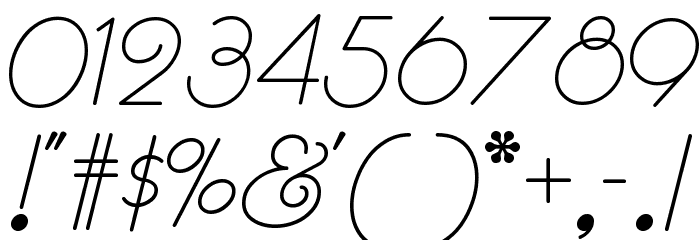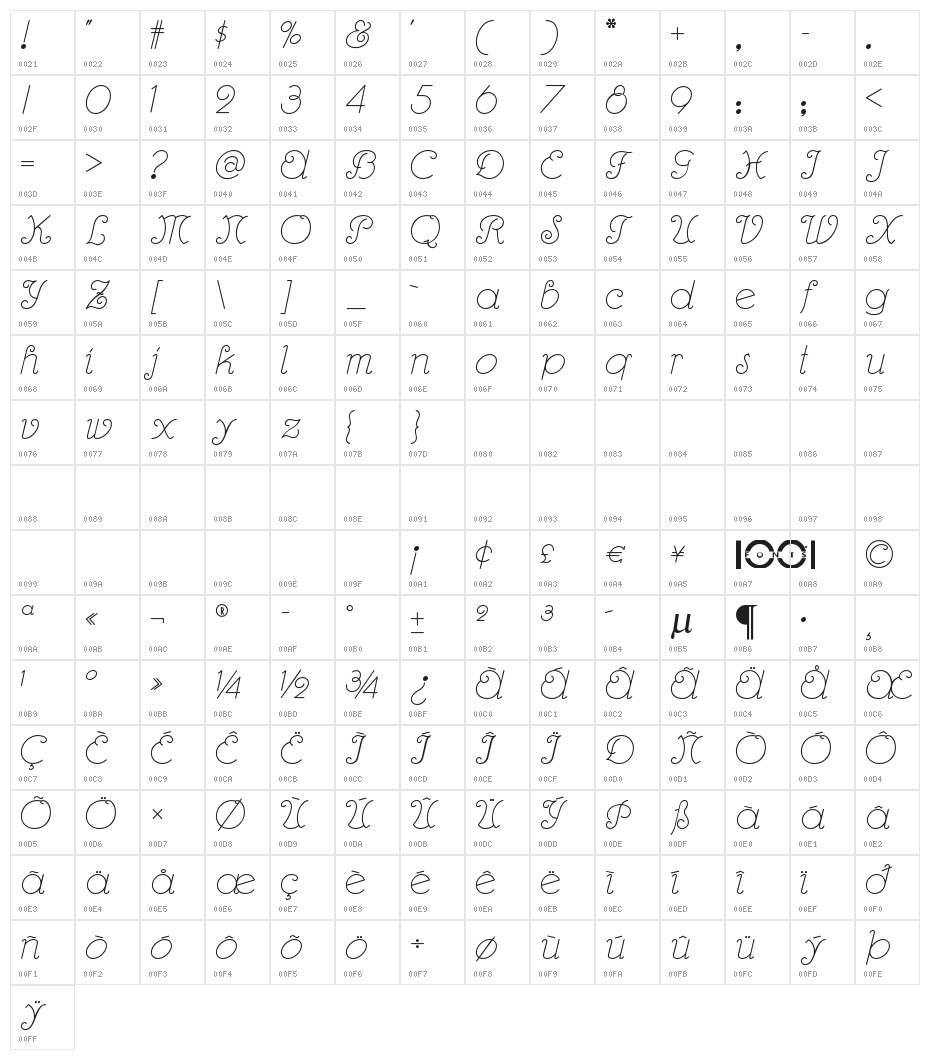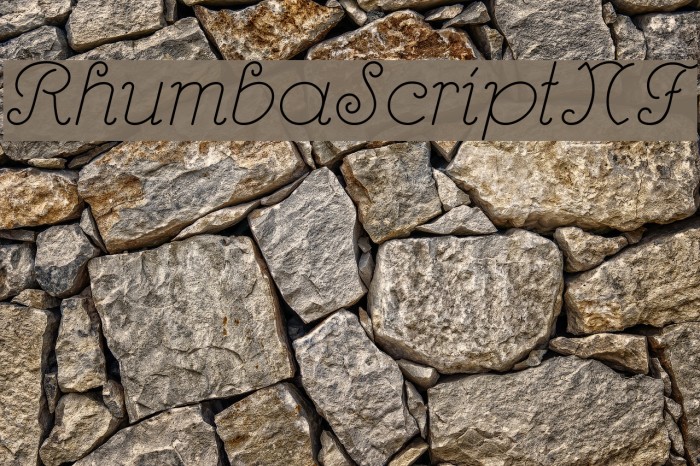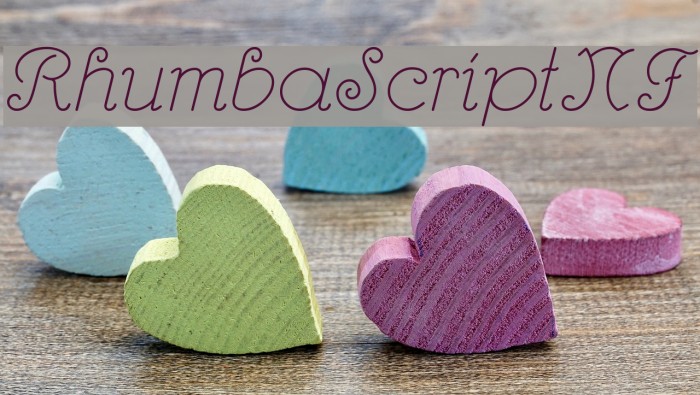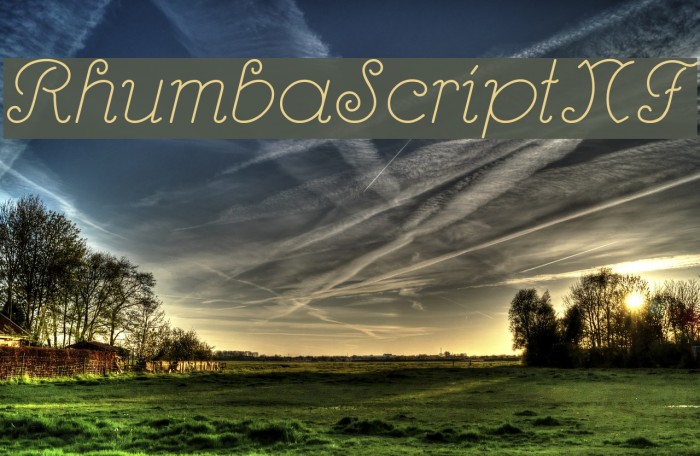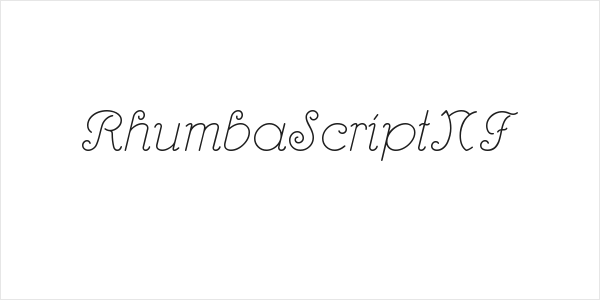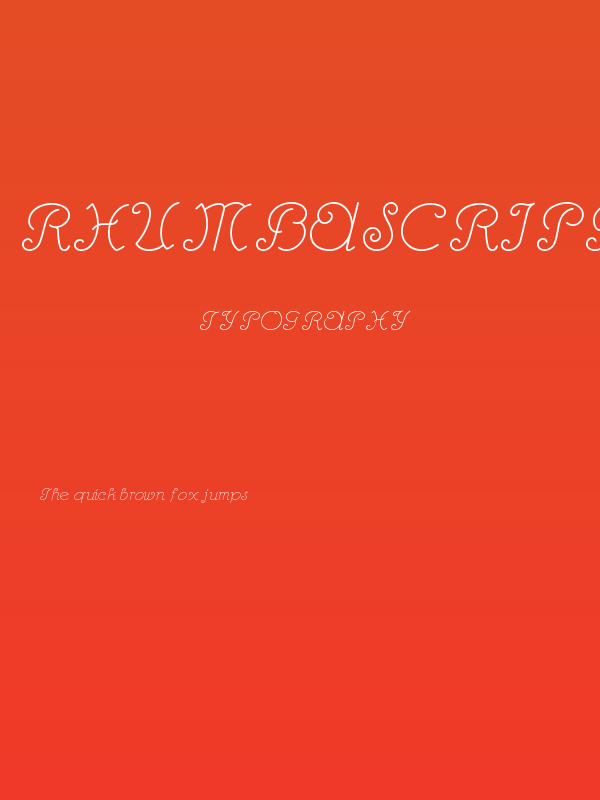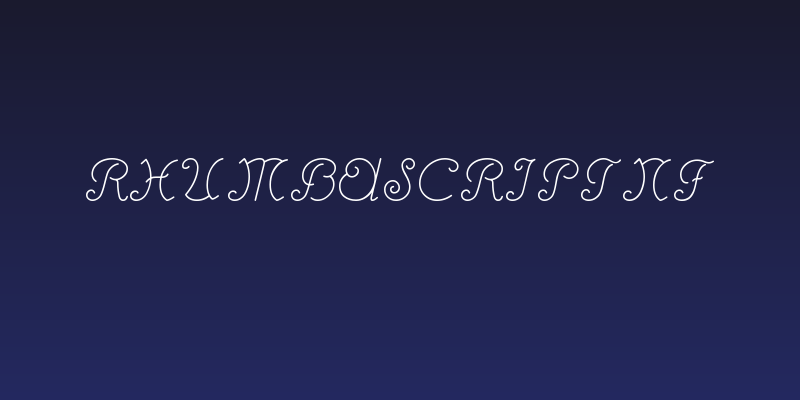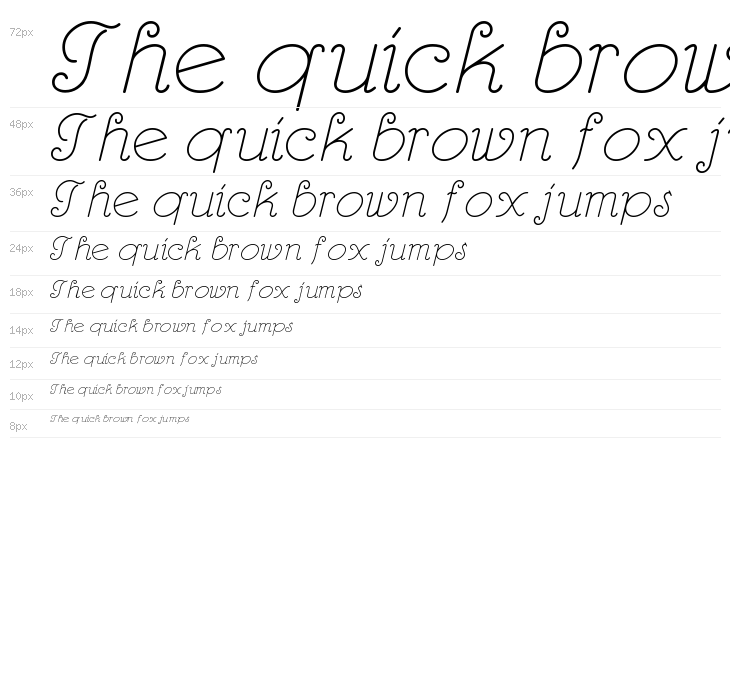
RhumbaScriptNF Font
RhumbaScriptNF Description
This elegant script font features a flowing, cursive style with intricate loops and swashes, giving it a sophisticated and artistic appearance. The uppercase letters are particularly ornate, with graceful curves and flourishes that add a touch of luxury and refinement. The lowercase letters maintain a consistent flow, making the text easy to read while retaining its decorative charm. The numerals and special characters are designed to match the overall aesthetic, ensuring a cohesive look across all text elements. This font is perfect for projects that require a touch of elegance and class.
| Proposed Projects | Ideal for wedding invitations, elegant branding, luxury product packaging, and artistic posters. |